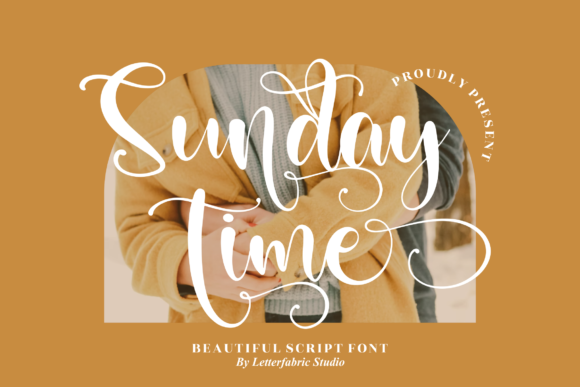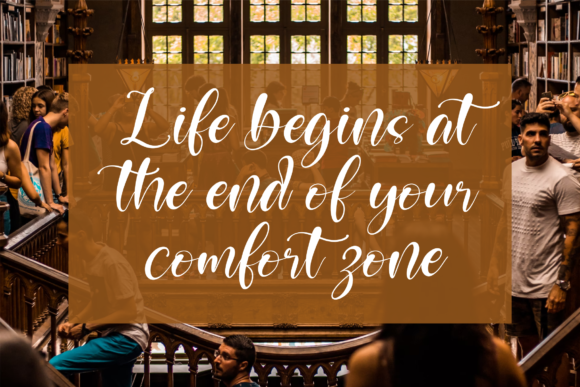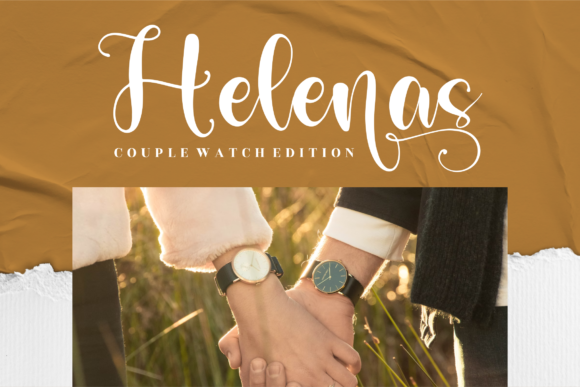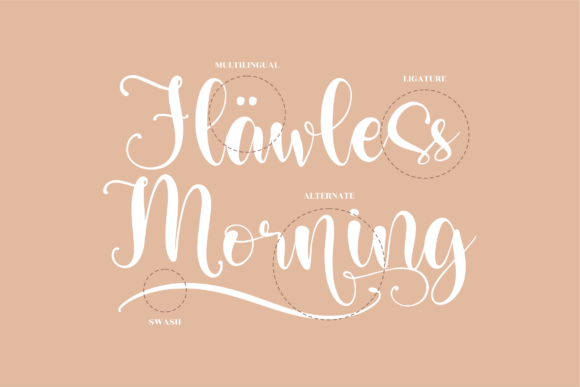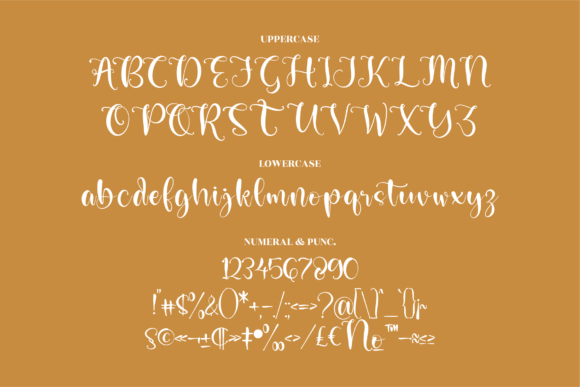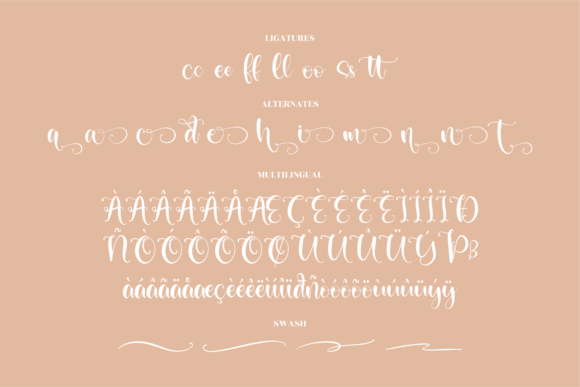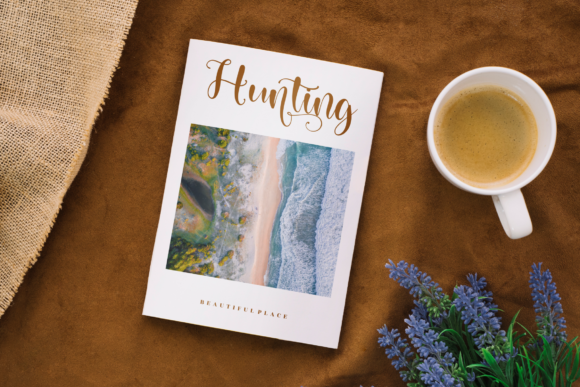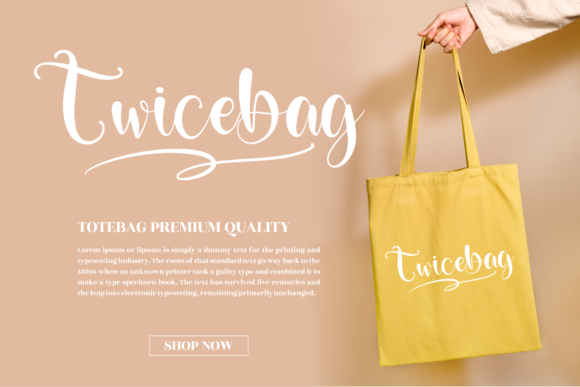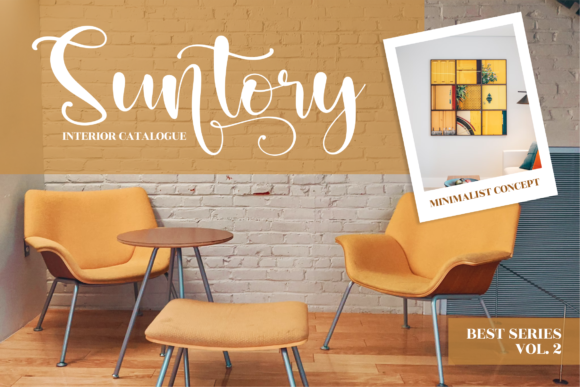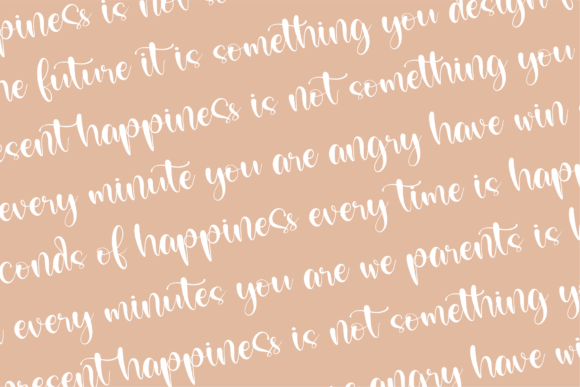
Sundaytime Font
About Sundaytime Font
Sundaytime is a thin lettered and graceful script font. Fall for its ravishing style and use it to create gorgeous designs. This font is PUA encoded which means you can access all glyphs and swashes with ease!